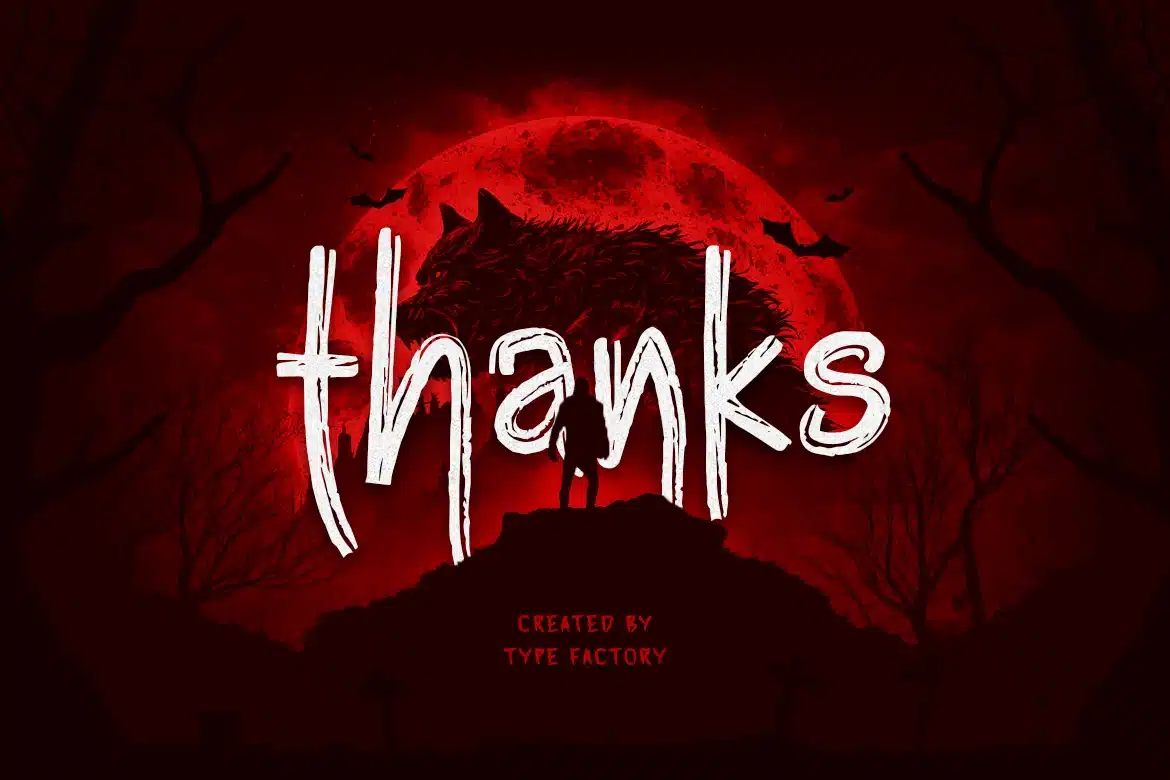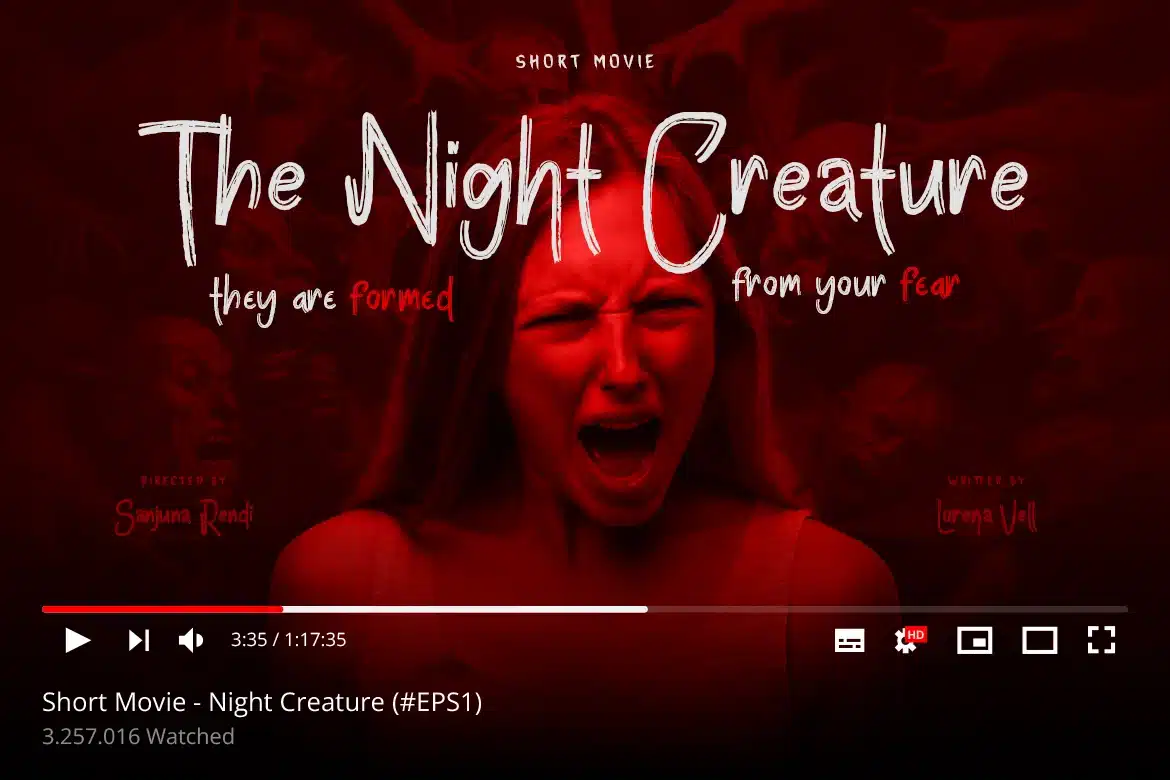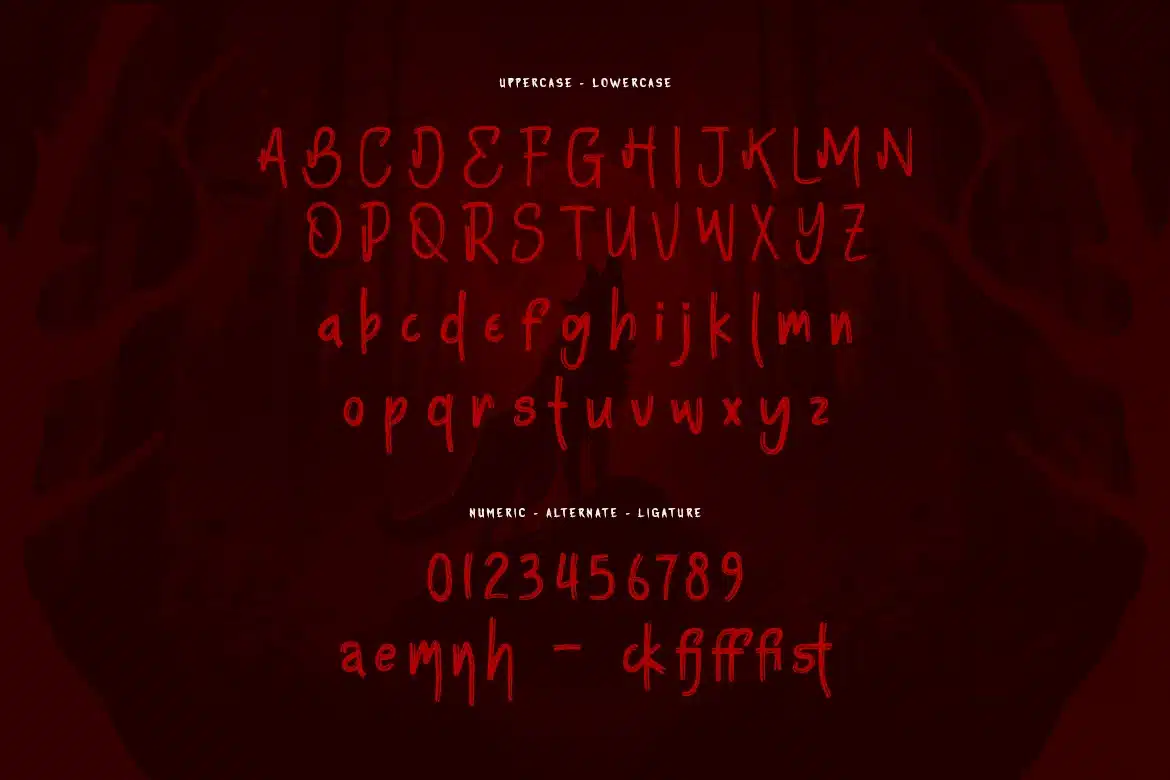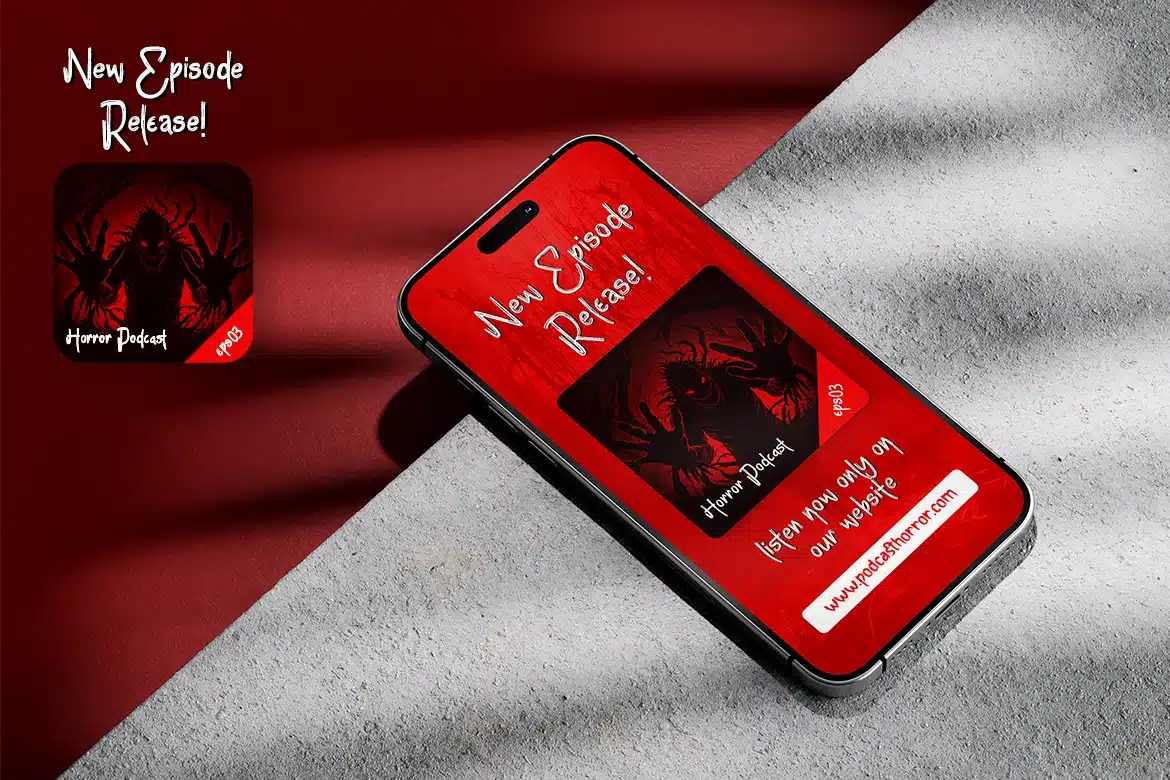
Horror Font – Nightnes
Nightnes is a hand-drawn horror typeface featuring rough strokes, irregular shapes, and expressive details that create a dark and unsettling visual tone. The imperfect forms and organic lines give this font a raw and eerie character, making it ideal for horror-themed designs.
Designed to evoke tension and mystery, Nightnes works effectively for projects that require a dramatic and atmospheric look. Its distinctive style helps create strong visual impact while remaining readable for display use.
This typeface is perfect for movie posters, horror titles, book covers, Halloween events, game design, and any visual content that needs a creepy and intense typographic presence.